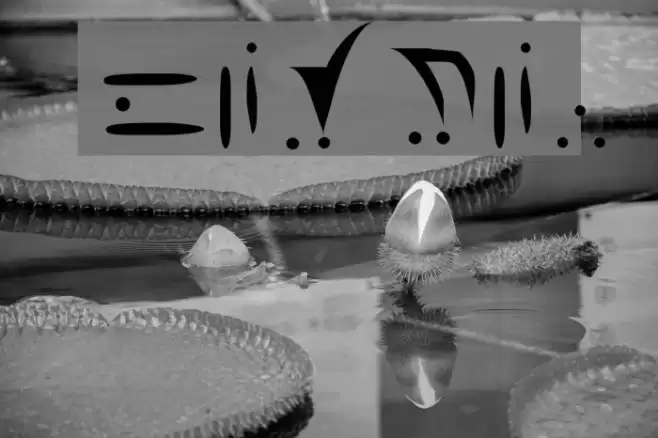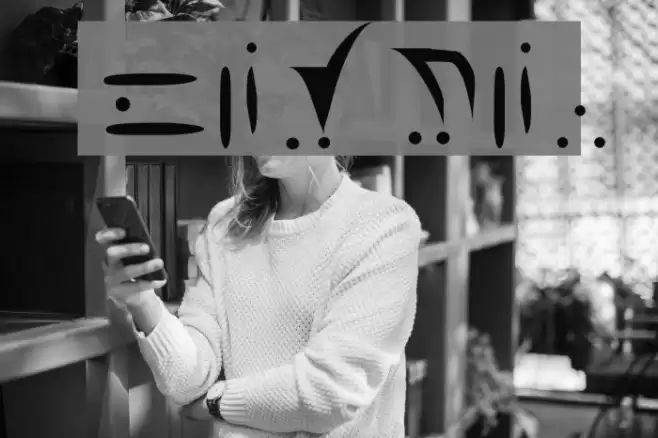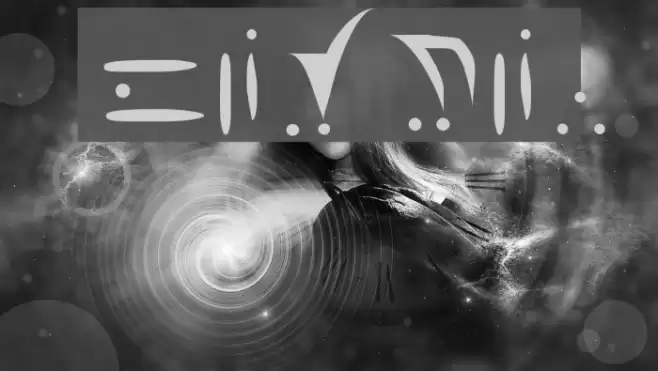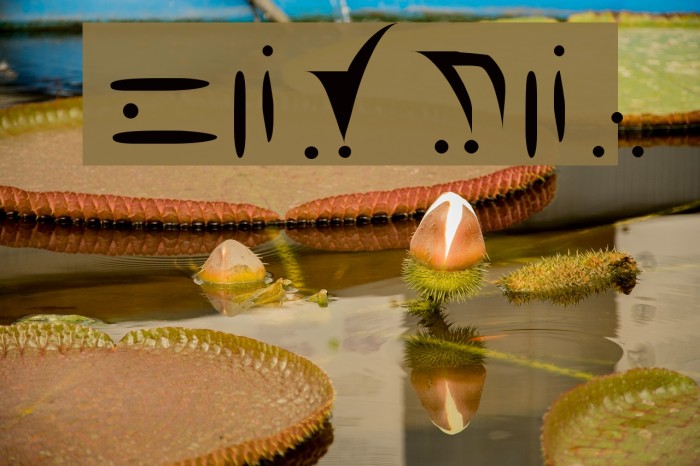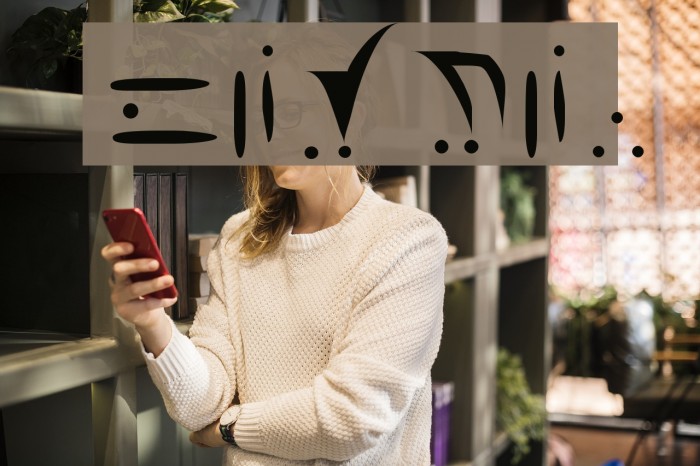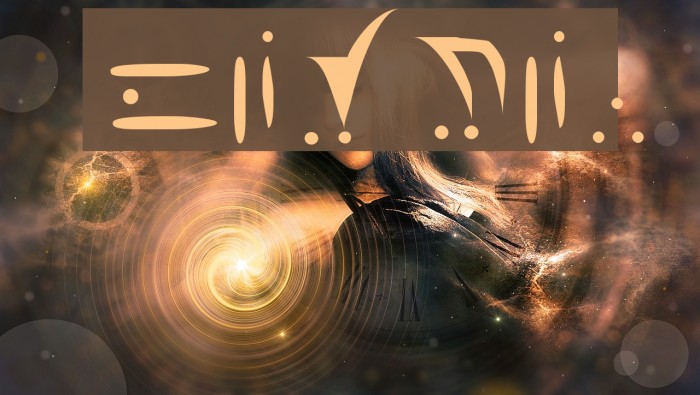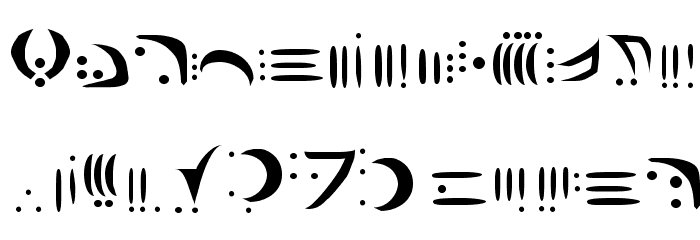
Vorlon Font
Vorlon Description
This design features an abstract and alien-like script with a series of curved lines, dots, and geometric shapes. The characters are highly stylized, resembling a fictional or extraterrestrial language. Each symbol is unique, with varying thickness and curvature, creating a sense of mystery and otherworldliness. The overall appearance is decorative and artistic, with a strong emphasis on visual intrigue rather than readability. This script is not intended for traditional text representation but rather for thematic or artistic purposes.
An abstract, alien-like script with decorative, geometric symbols from Futuristic fonts.
- Proposed Projects: Ideal for science fiction projects, alien-themed artwork, or decorative elements in futuristic designs.
- Overall Style: Futuristic, Alien, Decorative
- Use Case: Artistic designs, Thematic displays, Sci-fi projects